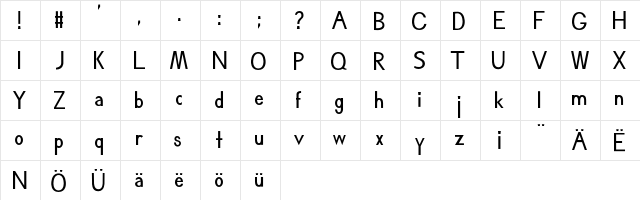
Hartl Ayela Regular
| Foundry | Luis Hartl |
| Designer | Luis Hartl |
Design Context for Hartl Ayela Typeface
Hartl Ayela is a composed and adaptable typeface that performs quietly and consistently across a wide range of design contexts.